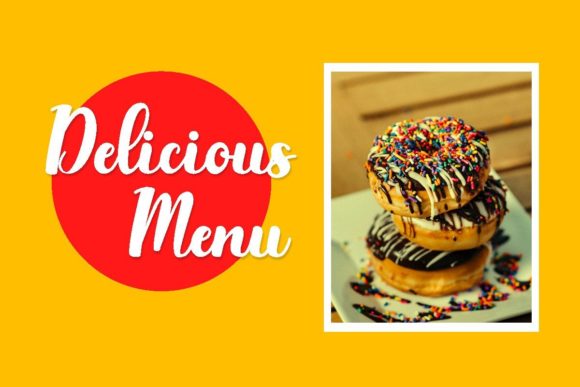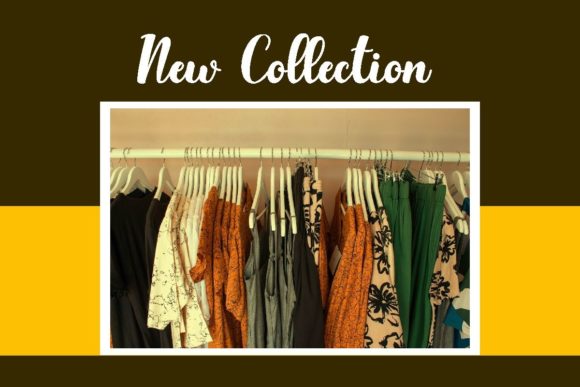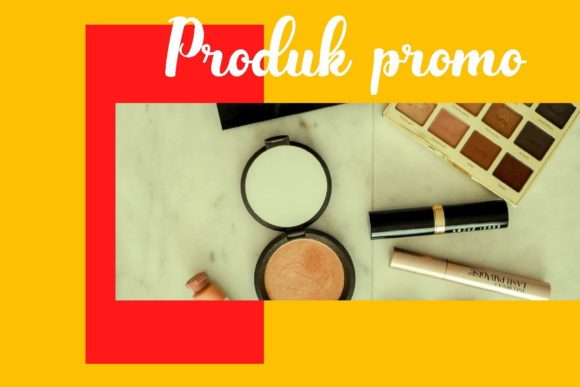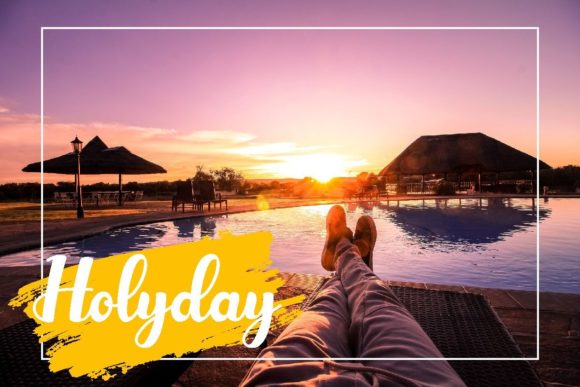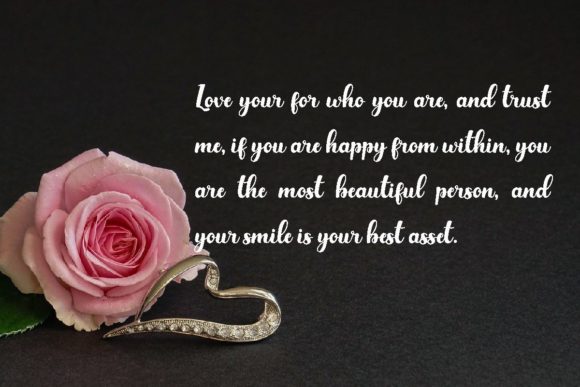
Happy Banana Font
About Happy Banana Font
Happy Banana feels incredibly chic and trendy. It looks wonderful on wedding invitations, thank you cards, quotes, greeting cards, and every other design which needs a customized touch.